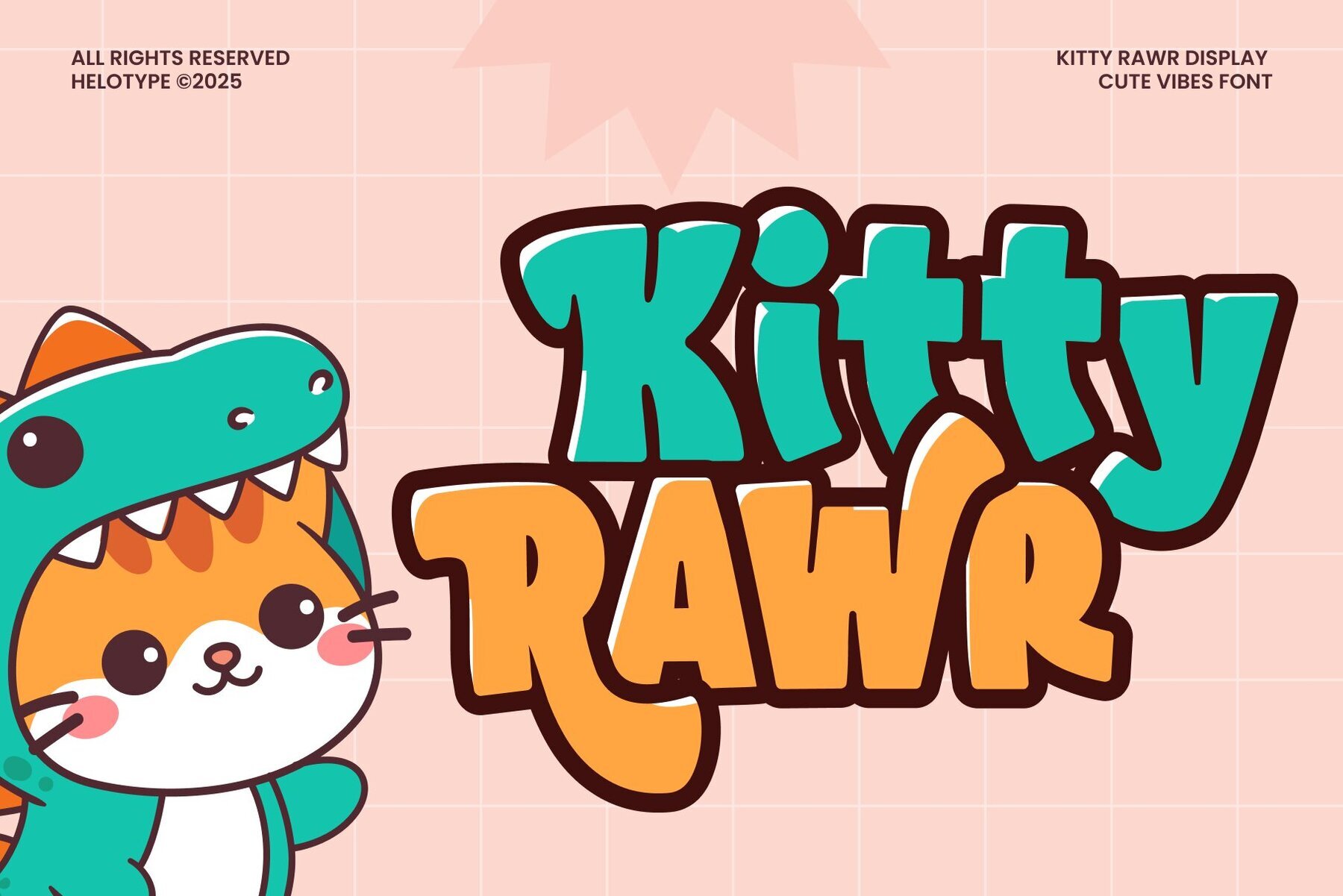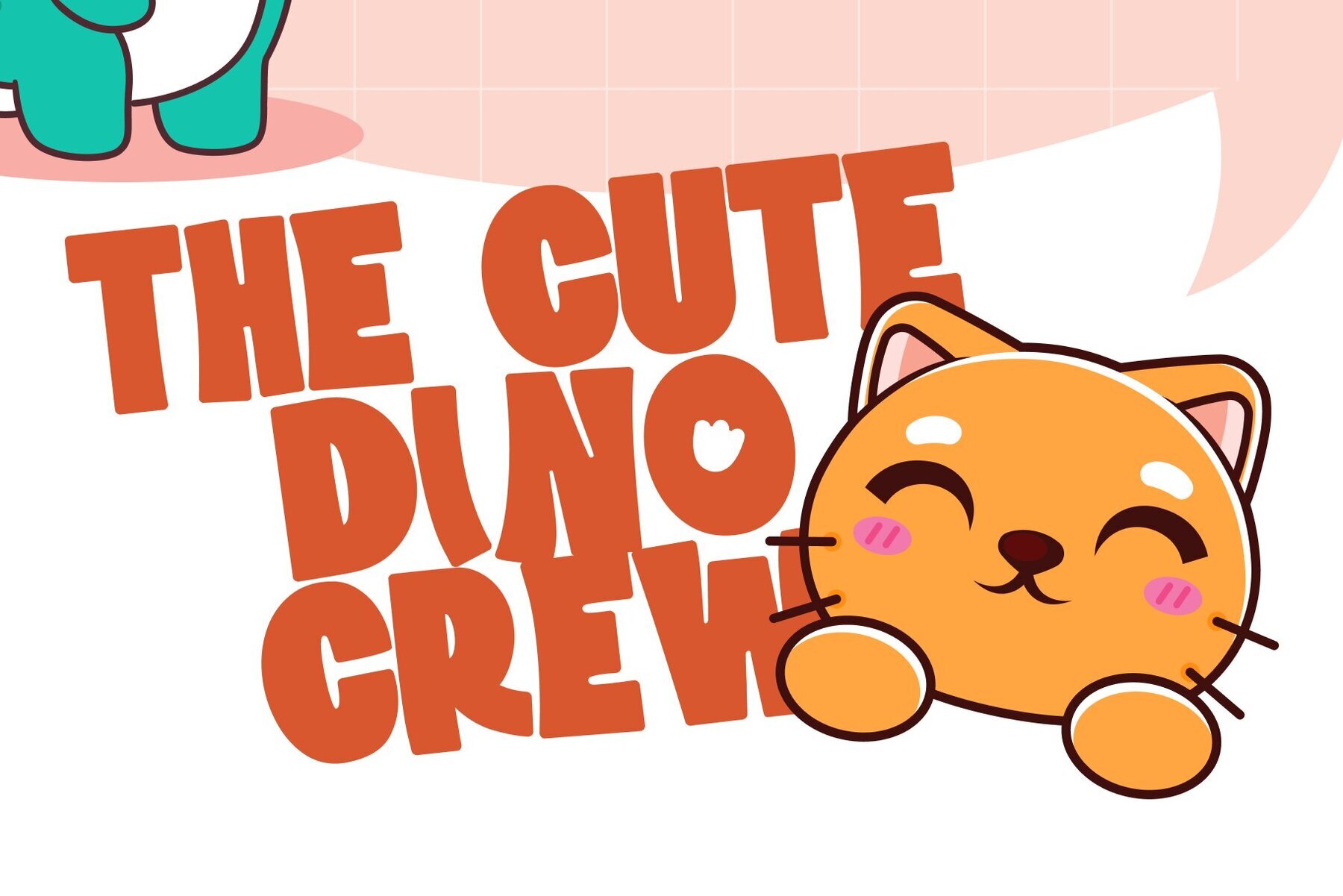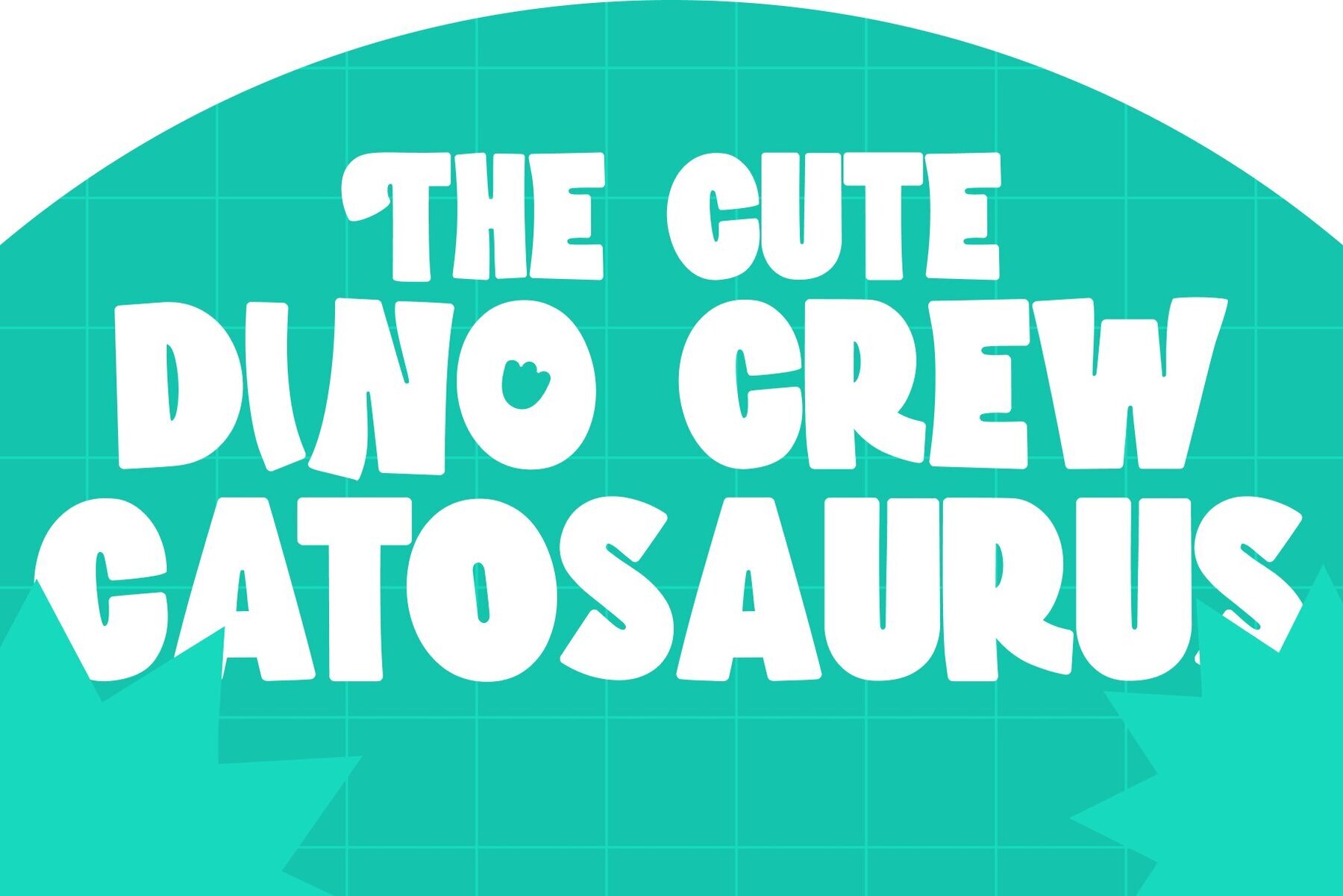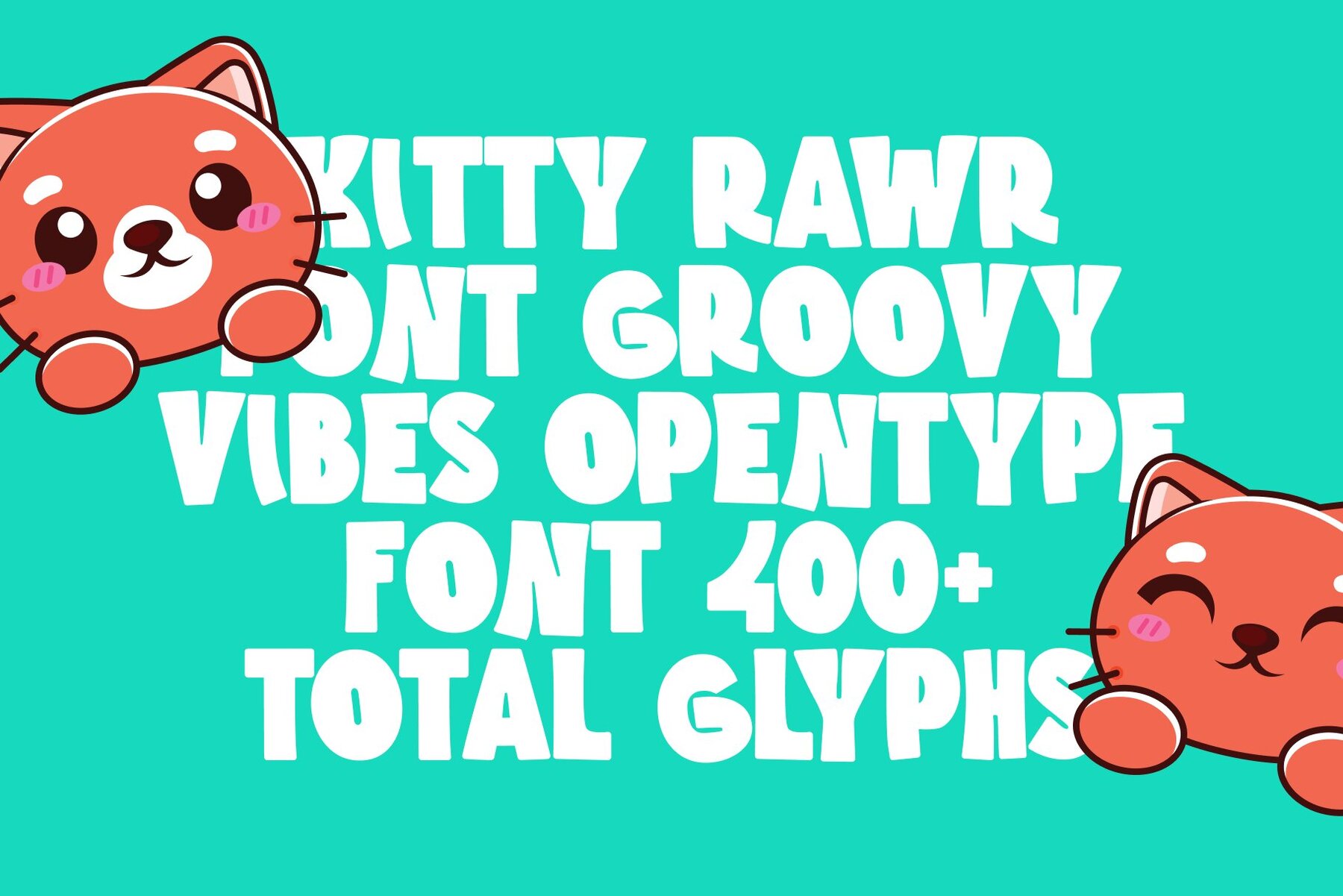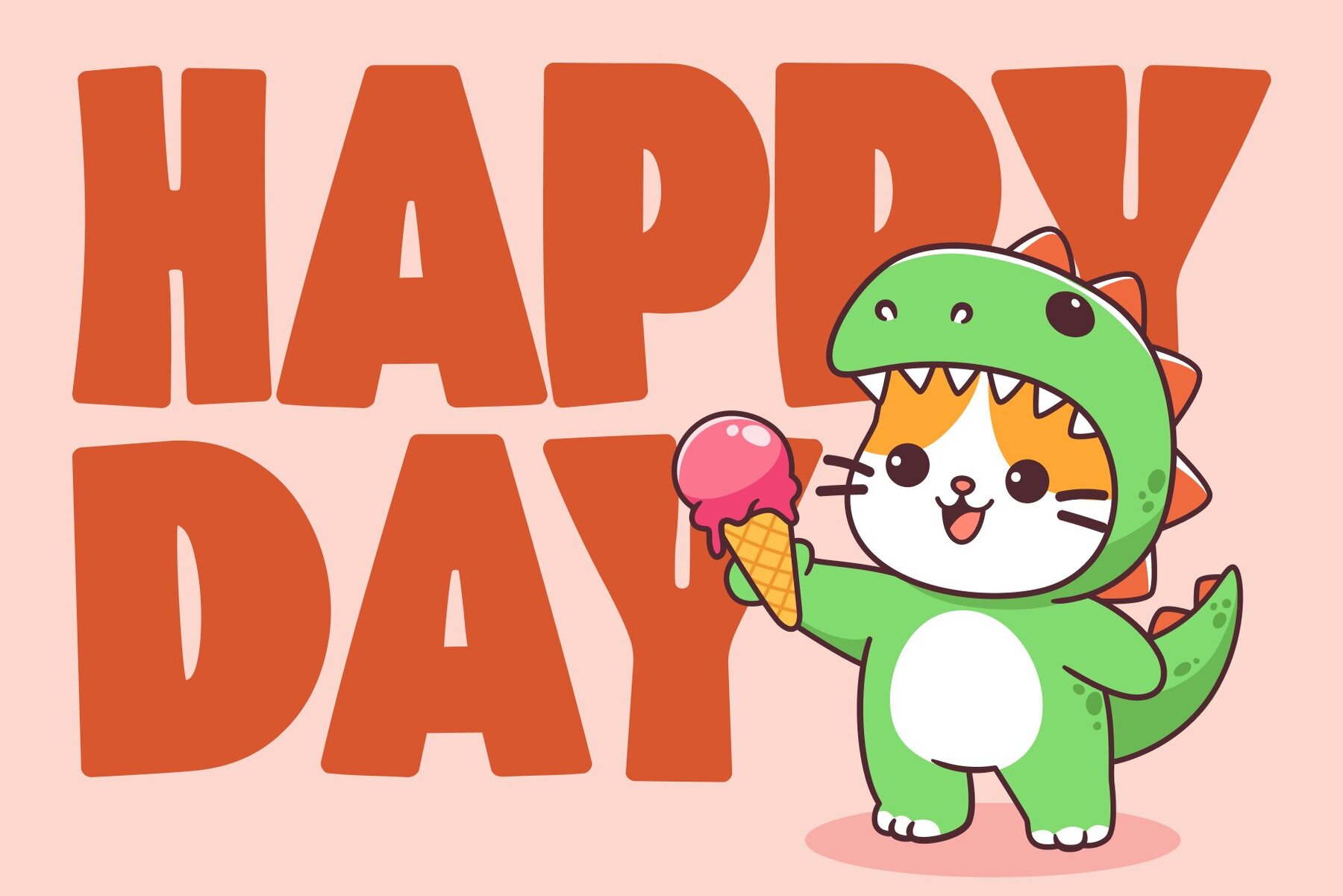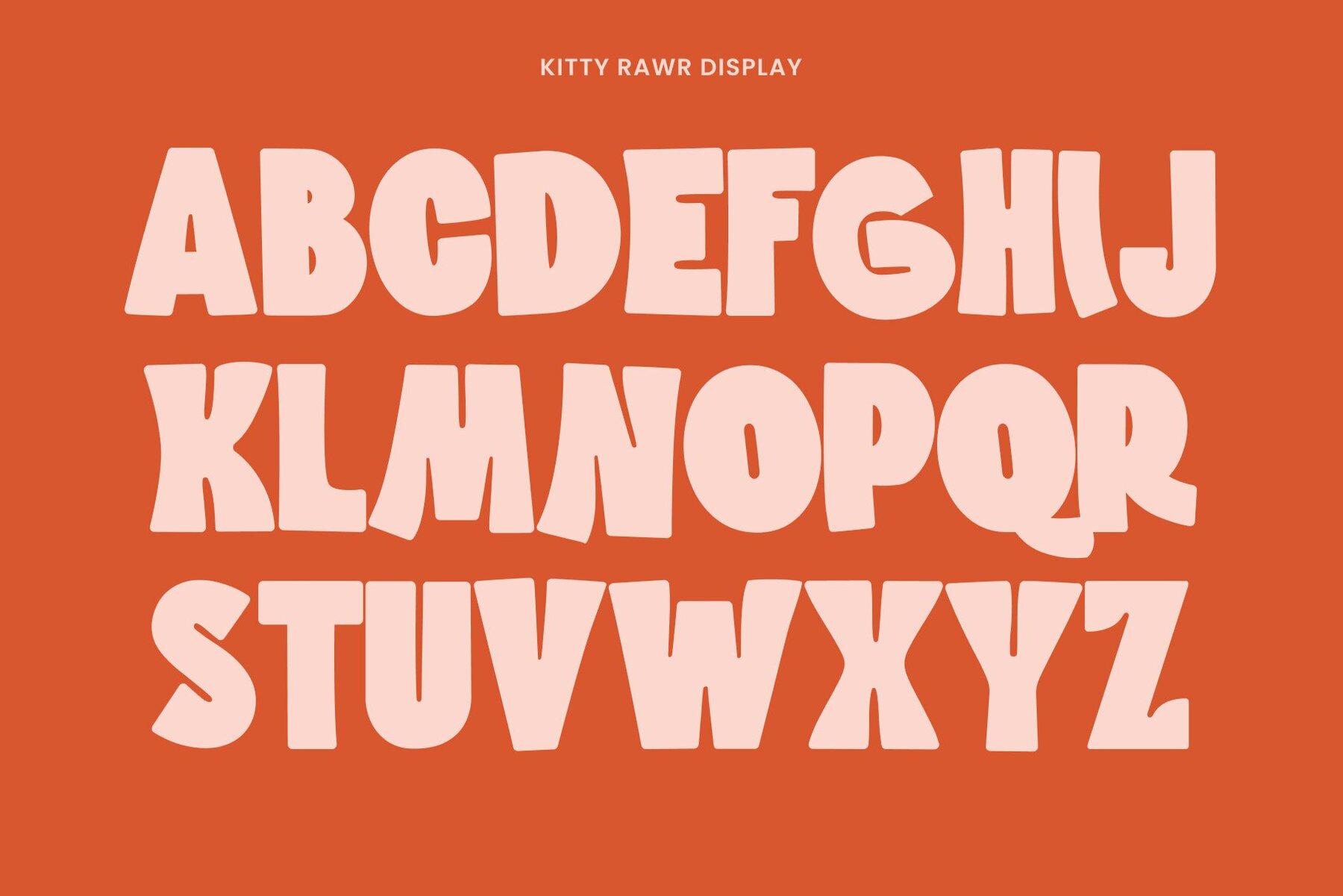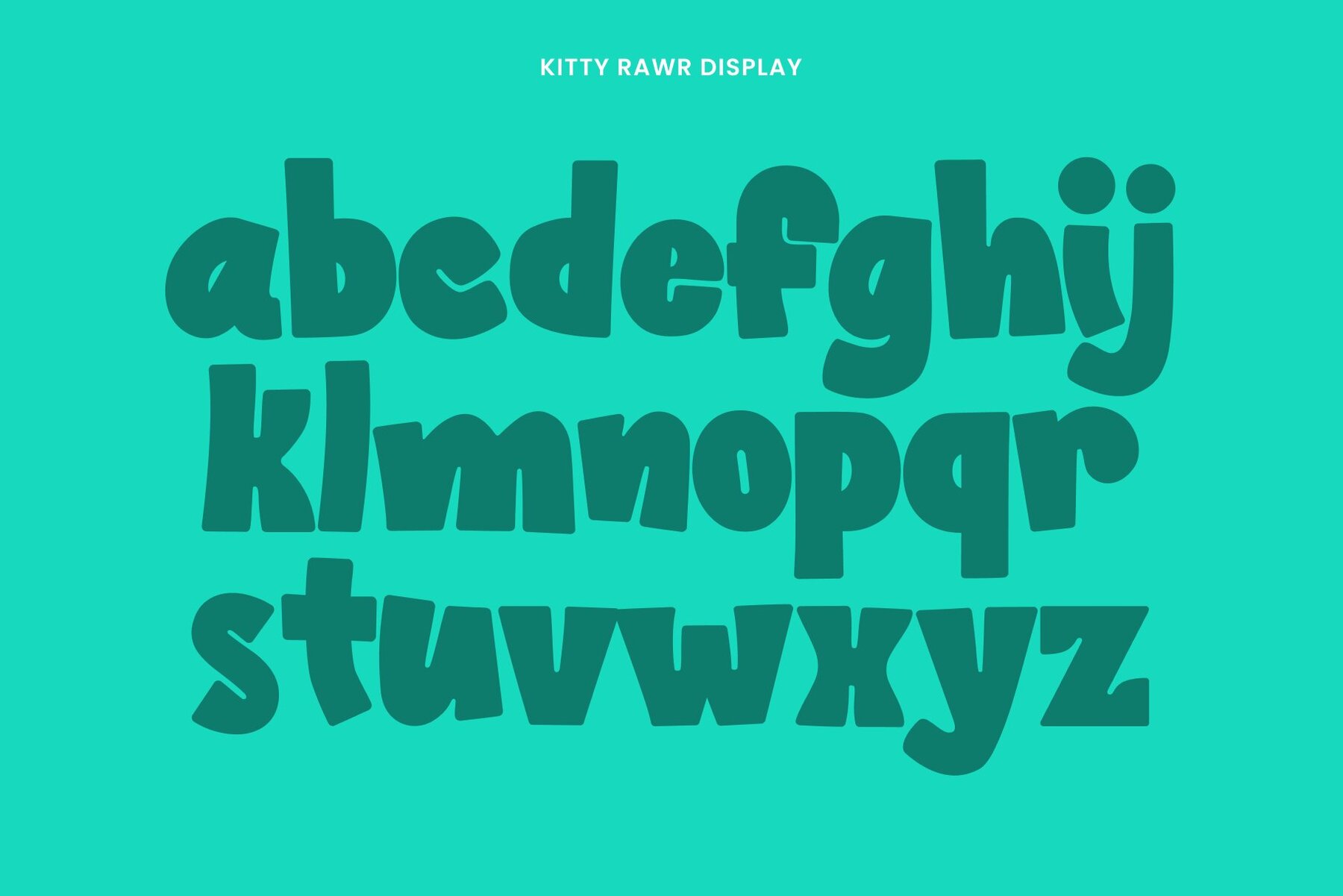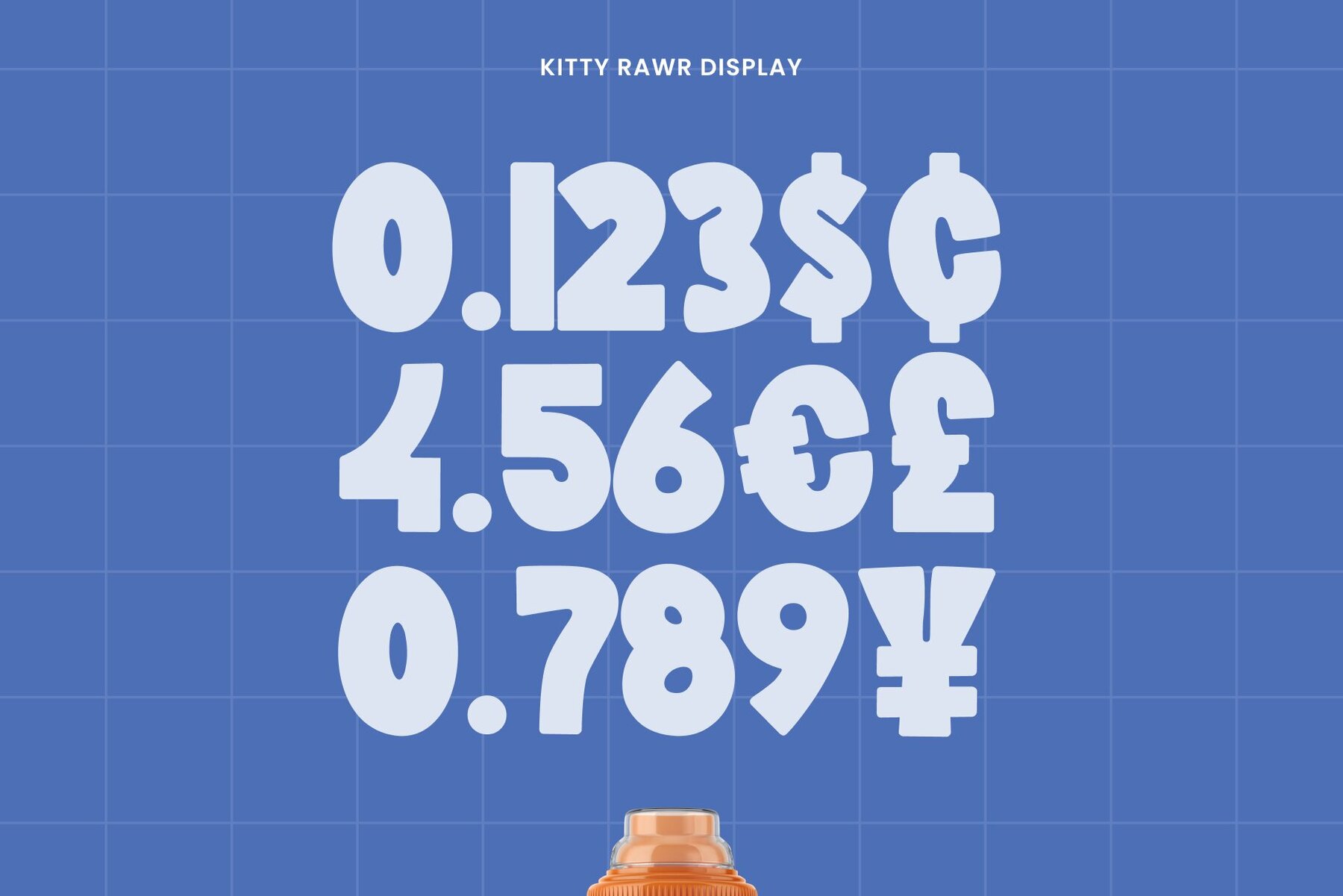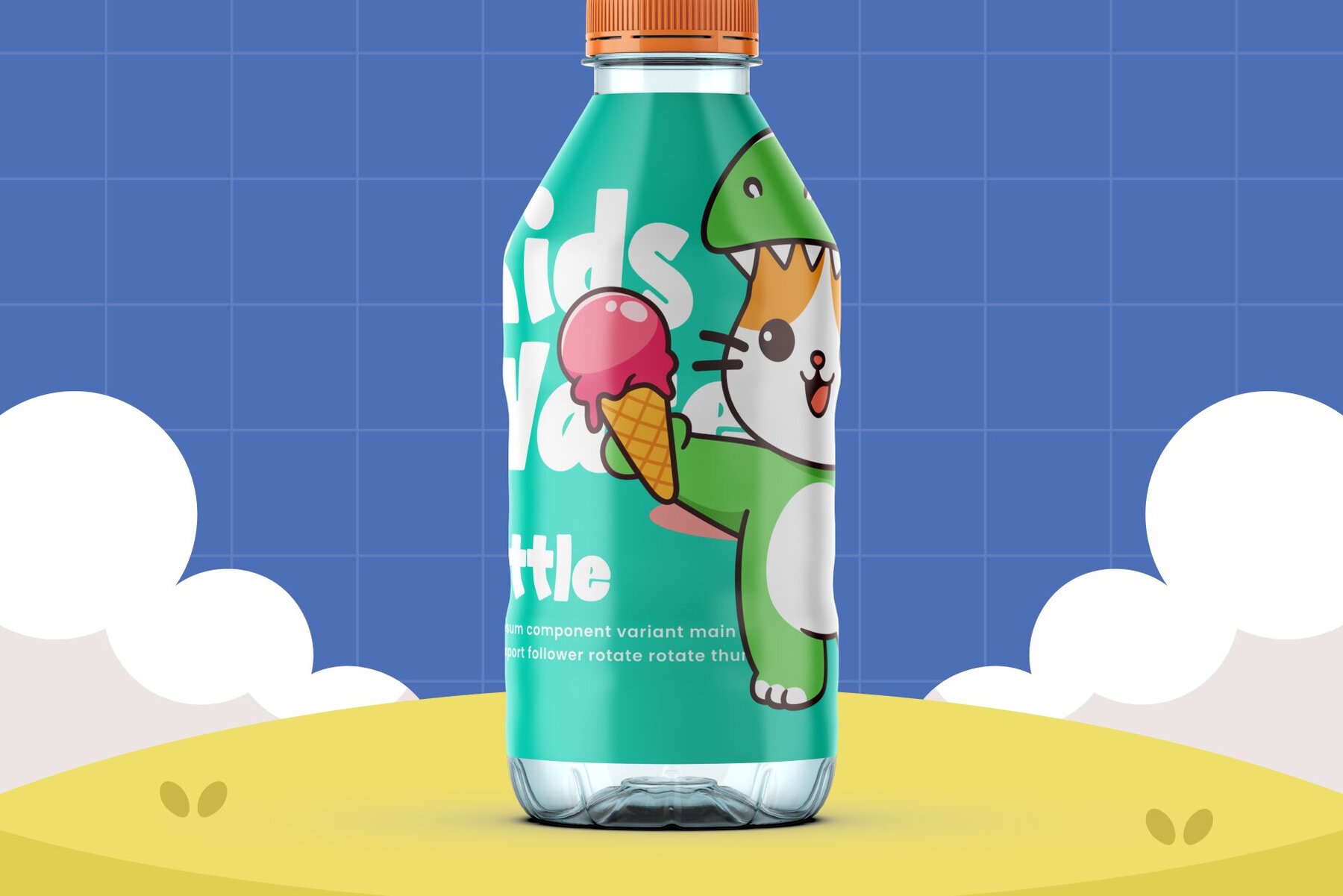
Kitty Rawr Font
Kitty Rawr
Kitty Rawr brings a whimsical touch to any design, blending groovy bubble letters with a cheerful cat-dino theme. The rounded, bold characters capture both the charm of playful kittens and the quirky strength of a tiny T-Rex. Each letter is designed to convey a lively, friendly energy that draws attention without overwhelming your project. This display font is ideal for branding, children's book covers, greeting cards, or any creative work that benefits from a lighthearted, energetic style. Kitty Rawr makes it easy to introduce a sense of fun and personality to your designs, ensuring they stand out and leave a memorable impression.Kitty Rawr: Playful Bubble Display Font